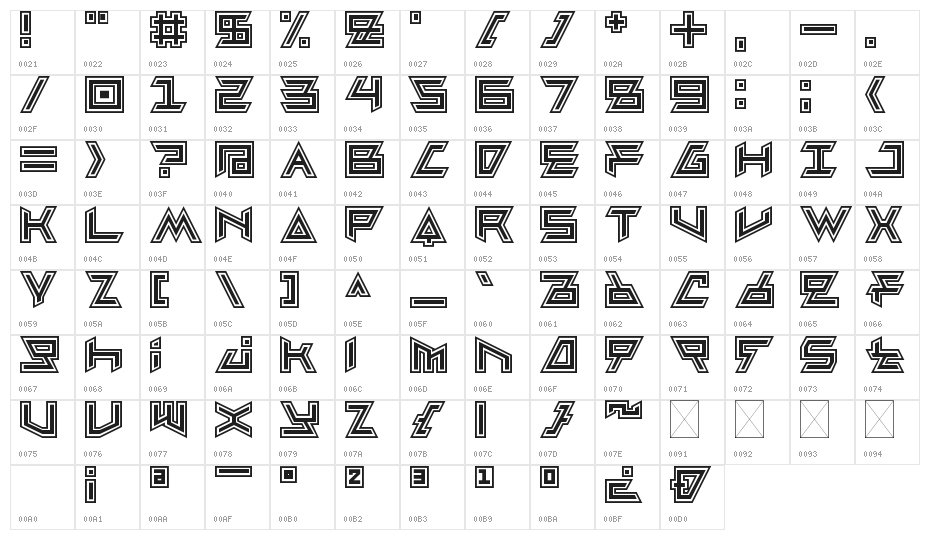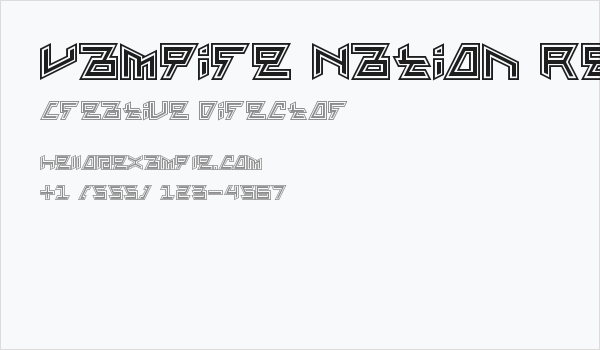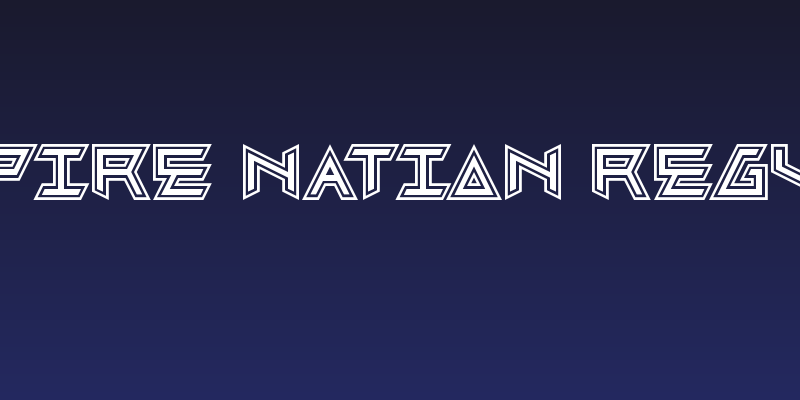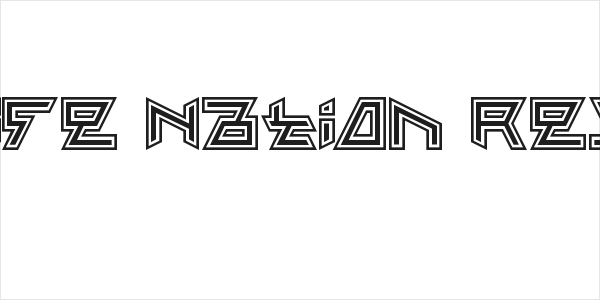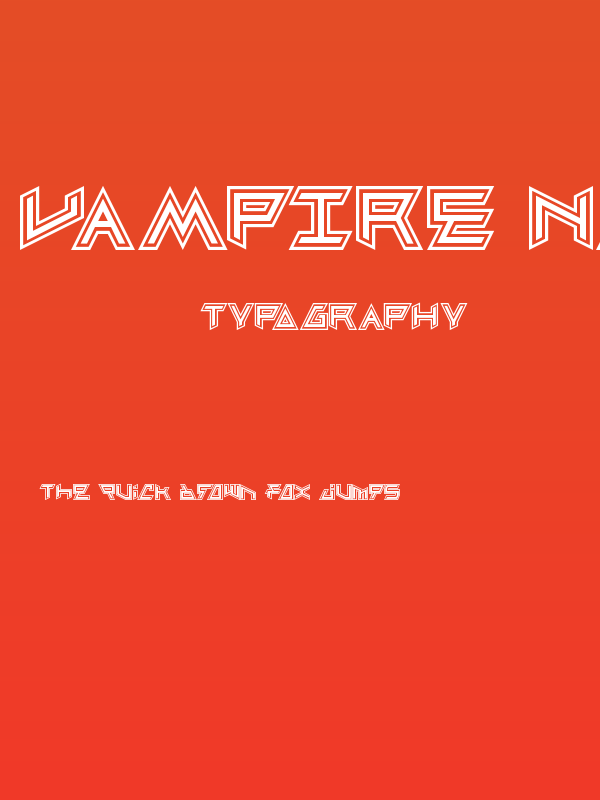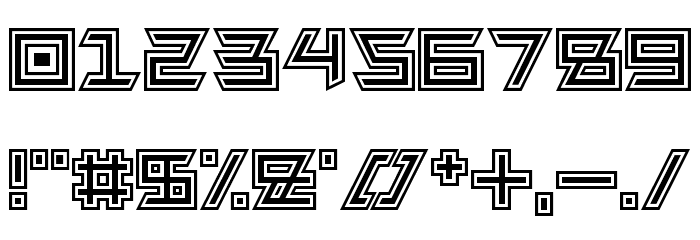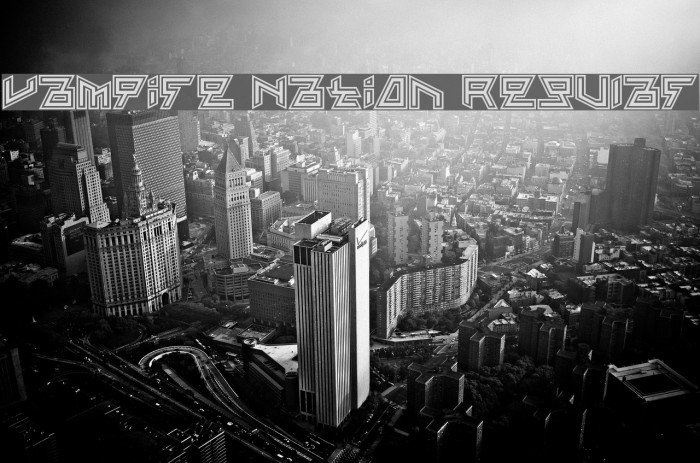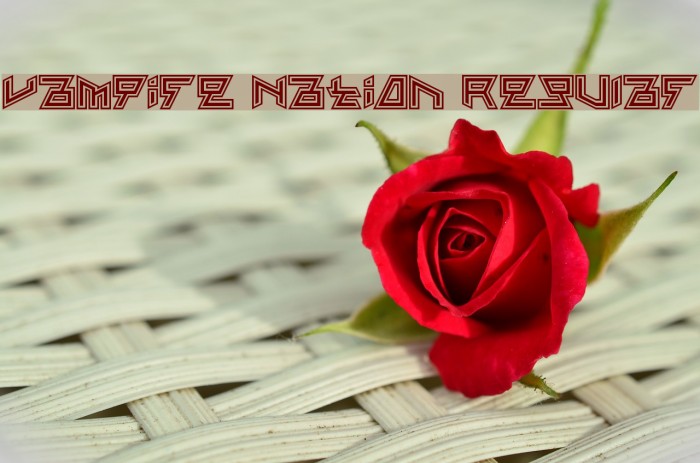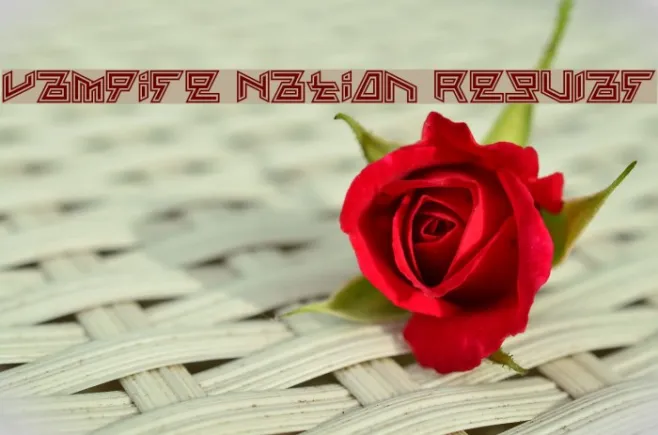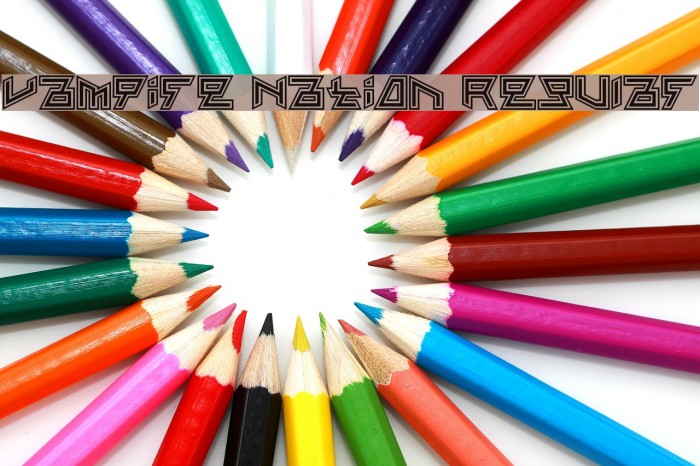
Vampire Nation Regular Font
Vampire Nation Regular Description
This font features a bold, geometric design with sharp angles and a futuristic aesthetic. The characters are outlined with a double line, creating a striking and dynamic appearance. The uppercase and lowercase letters share a consistent style, with angular cuts and a sense of movement. Numbers and special characters are designed to match the overall theme, maintaining the bold and edgy look. The font's unique style makes it stand out, suitable for projects that require a modern and impactful visual presence.
| Proposed Projects | Ideal for sci-fi themed designs, video game titles, posters, and branding that requires a modern and edgy feel. |